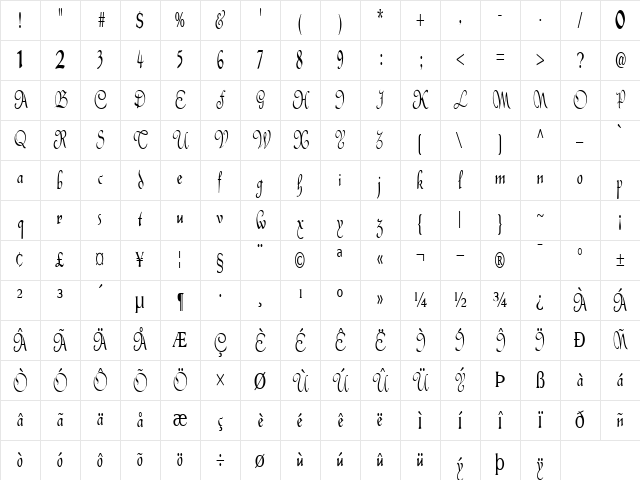
Lancaster Bold Free Font
Lancaster Bold
Lancaster Bold Family
Lancaster Bold
Design Context for Lancaster
Lancaster is a composed and adaptable typeface that performs quietly and consistently across a wide range of design contexts. Its bold stroke weight gives it real presence on the page.
Pro Tip: Use Lancaster in both headline and body roles to test its range before committing to a single application.